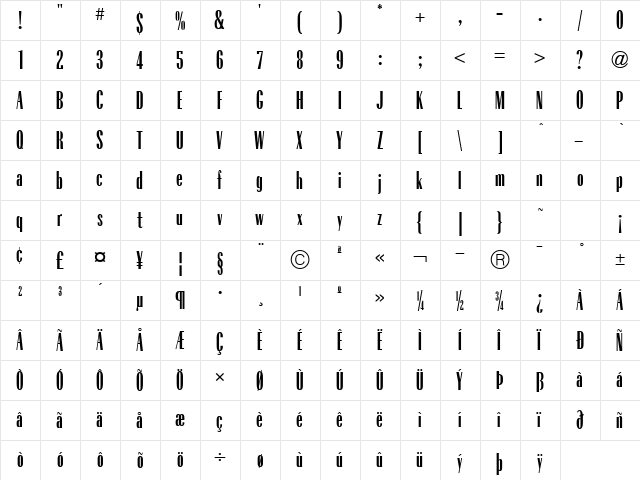
Radiant XCond ICG Regular
Design Context for Radiant XCond ICG Typeface
Radiant XCond ICG offers clean, dependable letterforms without strong stylistic allegiance, making it a practical choice for designers who need flexibility. The condensed width makes it efficient for tight spaces without sacrificing legibility.